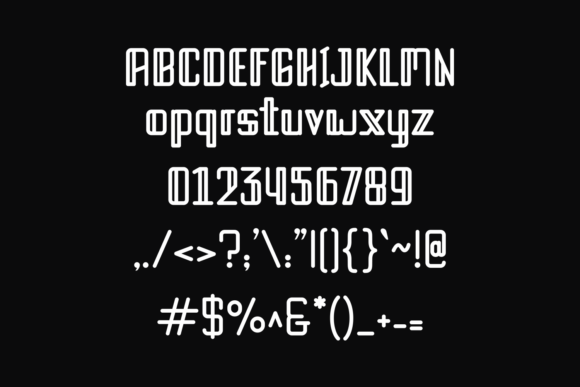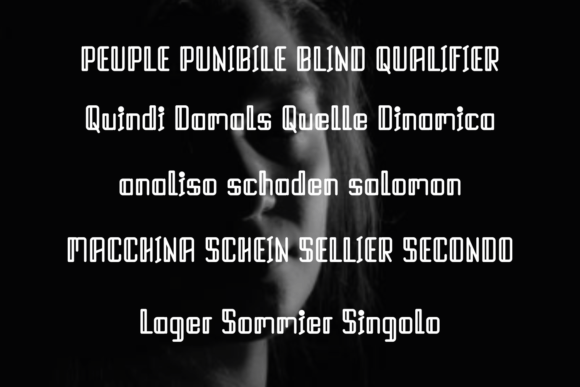
The Birth of a Masterpiece: Discovering Arlonas Font
You know that feeling when you stumble upon a font that perfectly captures the essence of your creative vision? The one that makes you exclaim, “This is it! This is the font I’ve been searching for!” For many designers, that moment is about to arrive with the introduction of Arlonas Font. This cool and unique display font is a game-changer, offering an incredibly distinct and timeless style that’s sure to elevate your designs to the next level.
Arlonas Font is more than just a pretty face – it’s a powerful tool for designers who want to create spectacular designs that leave a lasting impression. Whether you’re working on a branding project, a graphic novel, or a digital signage, this font is the perfect companion to help you bring your ideas to life. With its versatility and elegance, Arlonas Font is an invaluable addition to any designer’s toolkit.
- Font Family: Arlonas is a sans-serif font family.
- Unique Characteristics: Arlonas features a modern, clean design with a subtle rounded edge, making it ideal for digital and print media.
Arlonas Font Review
Overall, I think Arlonas Font is a decent option for those looking for a sans-serif font with a bit of character. ✨ Here are some things that work well:
- Unique character and personality: Arlonas Font has a distinctive feel that sets it apart from more generic sans-serif fonts.
- Good for display use: It’s a great choice for headings, titles, and other display text where you want to make a statement.
- Well-suited for modern designs: Arlonas Font’s clean lines and minimalist aesthetic make it a good fit for contemporary designs.
- May not be suitable for body text: The font’s x-height is a bit smaller than average, which can make it more tiring to read for extended periods.
- Limited language support: Some languages may not have adequate support for Arlonas Font, which can limit its use.
- Not as versatile as some other fonts: While Arlonas Font is great for display use, it may not be the best choice for a wide range of typography tasks.
Overall, I think Arlonas Font is a solid choice for designers who want a unique and eye-catching font for their projects. While it may not be the best option for every situation, it’s definitely worth considering for the right project.
Getting the Most Out of Arlonas Font
Here are some tips to get the most out of Arlonas Font:
- Use Arlonas Font for headings and titles to add a touch of elegance.
- Pair Arlonas Font with other fonts to create a unique and eye-catching combination.
- Experiment with different font sizes and colors to add visual interest.
Aronlas Font is suitable for:
- Branding and logos.
- Wedding invitations and stationery. Alternatives to Arlonas Font
- Use Arlonas Font as the main font for the invitation’s text, including the couple’s names and the wedding date.
- Add a contrasting font, such as a serif or sans-serif font, to provide balance and visual interest.
- Emphasize the couple’s names or special details with bold or italic Arlonas Font.
- Pair Arlonas Font with a watercolor or hand-painted background to create a soft, romantic look.
- Use gold or silver foil stamping to add a touch of luxury and sophistication.
- Combine Arlonas Font with delicate illustrations or florals to add a whimsical touch.
- Use Arlonas Font as the main font for the story’s text, including the dialogue and narrative.
- Add illustrations or graphics in a contrasting style, such as digital or traditional media, to provide visual interest.
- Emphasize key words
Unique Design Projects using Arlonas Font
Project 1: Luxurious Wedding Invitations
Create a sense of elegance and sophistication with Arlonas Font in your wedding invitations. The unique script style of the font will add a touch of luxury and whimsy to your special day.
Project 2: Whimsical Children’s Book Illustrations
Bring a touch of magic and wonder to your children’s book illustrations with Arlonas Font. The unique script style of the font will add a sense of enchantment and adventure to your story.